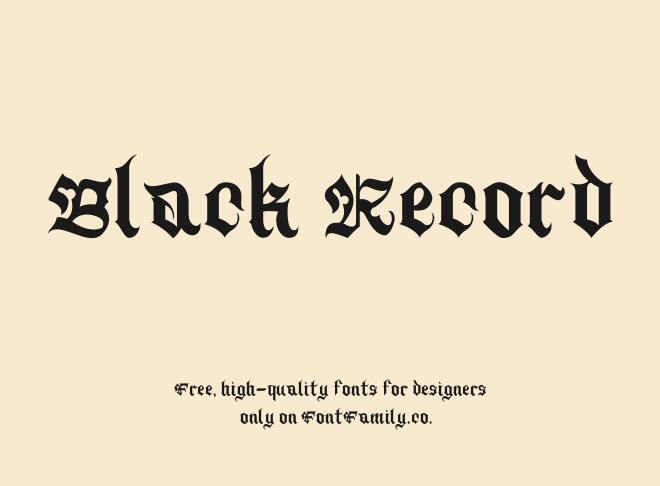
Black Record Font
Black Record Font, designed by the Creative Type Foundry, is a bold and dynamic typeface with a retro flair. It embodies the spirit of classic rock and roll and vintage design, making it an ideal choice for album covers, gig posters, and music-related branding. The font's boldness sets it apart, allowing for impactful and eye-catching design work. Its retro aesthetic harkens back to the golden age of vinyl records, giving your design a nostalgic edge. Whether used in headers, logos, or display text, Black Record Font adds a touch of vintage charm that is sure to captivate your audience. Compared to other retro fonts, Black Record stands out with its unique character design and readability, making it a must-have for designers aiming for a classic yet bold aesthetic.